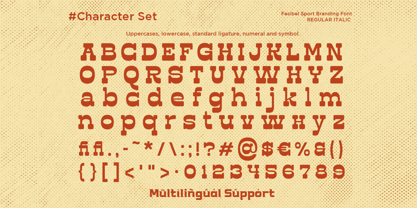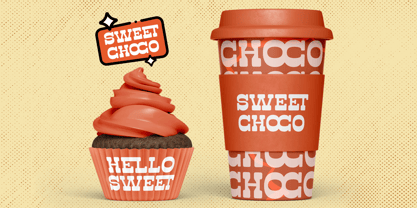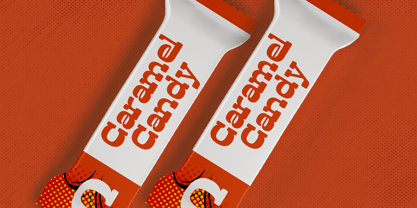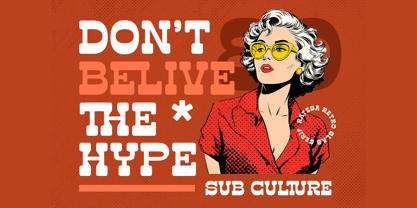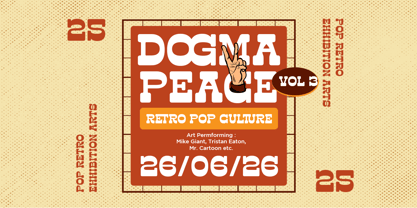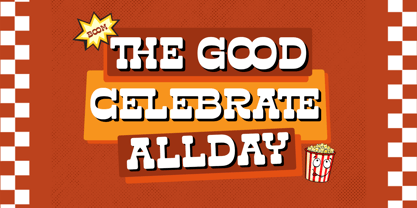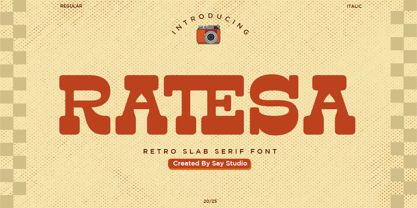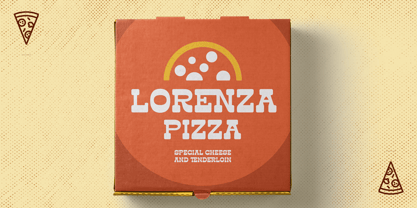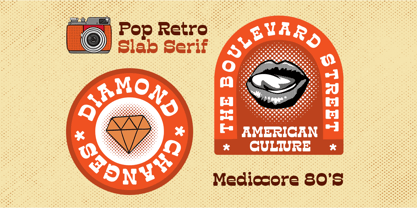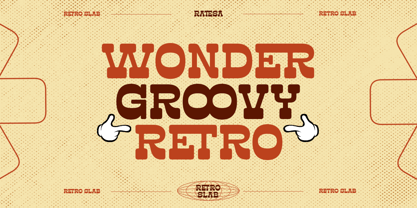
Ratesa
Ratesa is a bold retro slab serif font inspired by the iconic graphic style of the late 70s and vibrant 80s pop culture. Featuring chunky letterforms, soft rounded corners, and a strong vintage personality, this typeface instantly brings nostalgic energy to any creative project. Available in Regular & Italic, Ratesa also includes stylish ligatures that create authentic retro typography with effortless charm.
Designed to make headlines stand out, Ratesa is perfect for branding, packaging, food labels, café identities, posters, apparel, logos, social media graphics, editorial layouts, merchandise, and nostalgic marketing campaigns. Its bold slab construction delivers excellent readability while maintaining a playful vintage aesthetic that feels timeless.
Whether you're creating retro-inspired branding, restaurant packaging, coffee shop menus, vintage posters, YouTube thumbnails, festival graphics, or product labels, Ratesa provides the perfect combination of bold character and classic American retro style.
• Regular and Italic
• Stylistic Ligatures
• Uppercase and Lowercase
• Number, Symbol, and Punctuation
• Multi Language Support